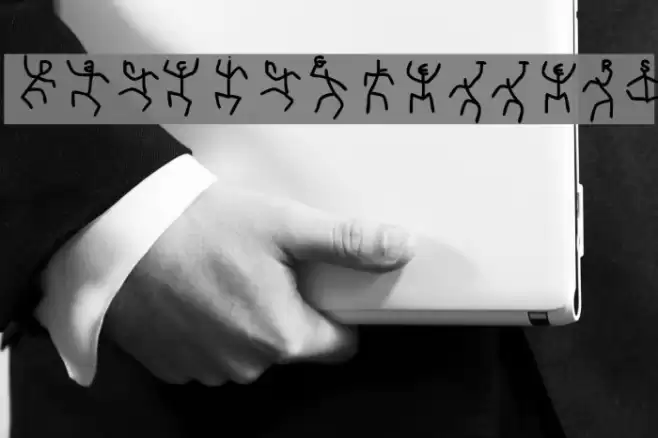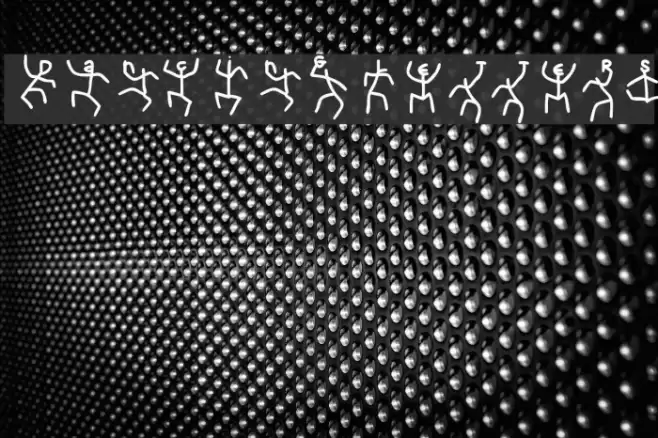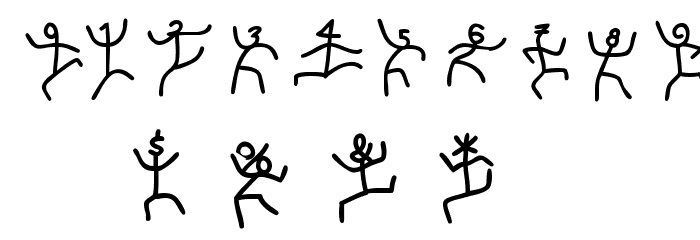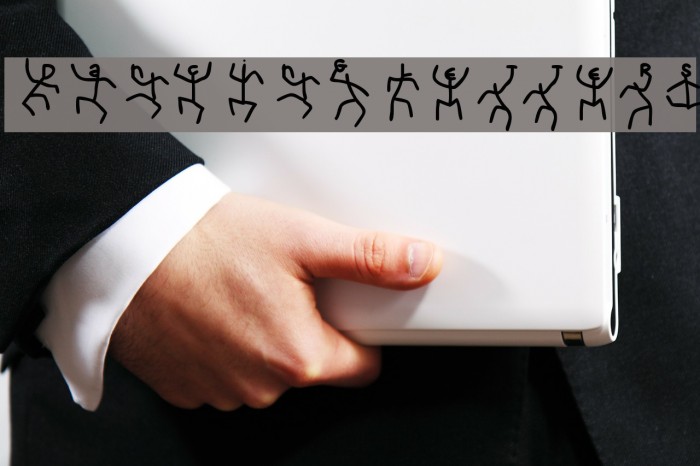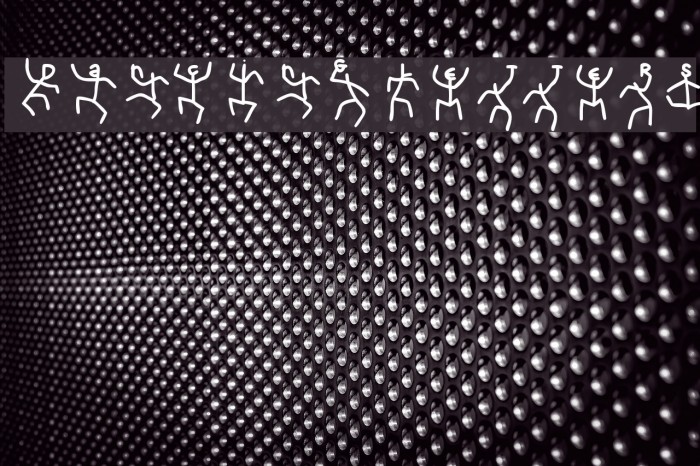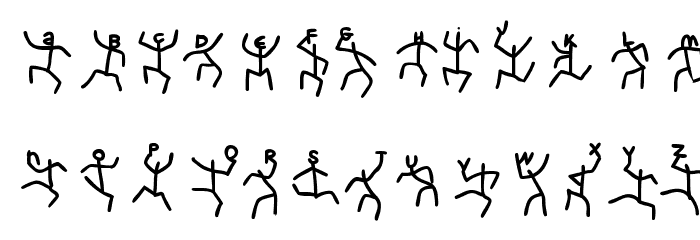
DancingLetters Font
DancingLetters Description
This playful and whimsical font features characters that resemble stick figures in various dance poses. Each letter and symbol is creatively designed to convey movement and energy, making it highly distinctive and engaging. The strokes are bold and consistent, with a hand-drawn quality that adds to its charm. The font is highly decorative, with each character maintaining a unique posture, yet collectively forming a cohesive set. The style is informal and artistic, ideal for projects that require a fun and lively touch.
A whimsical, dance-inspired font with stick figure characters from Uncategorized fonts.
- Proposed Projects: Perfect for children's books, party invitations, playful branding, and creative posters.